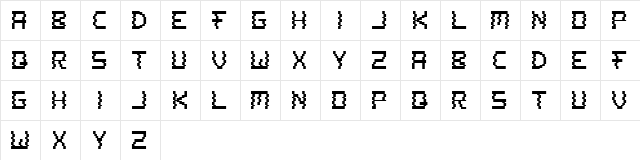
A to Z Regular
Design Context for A to Z Typeface
A to Z takes a measured approach to typography — its balanced proportions and neutral character make it a reliable workhorse for both digital and print work.